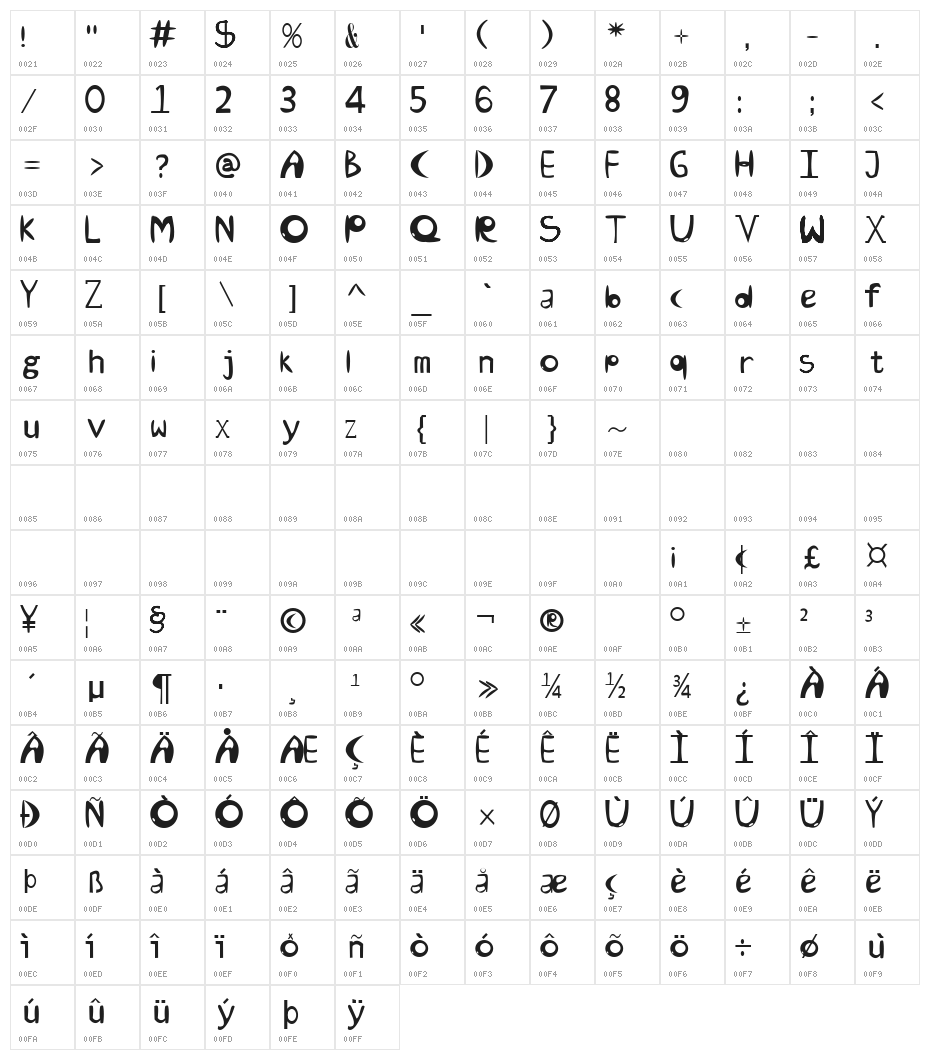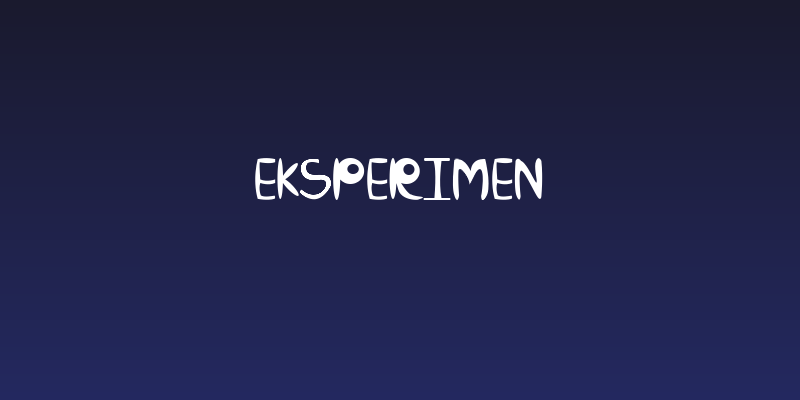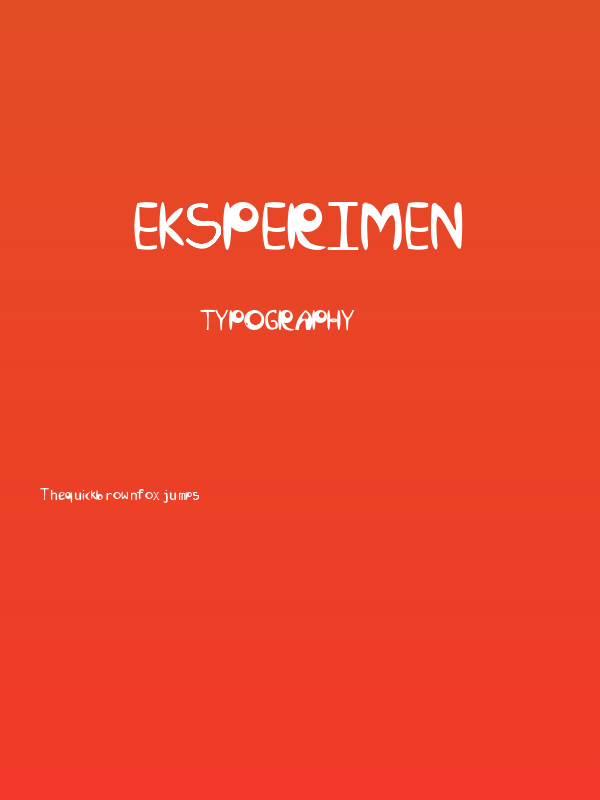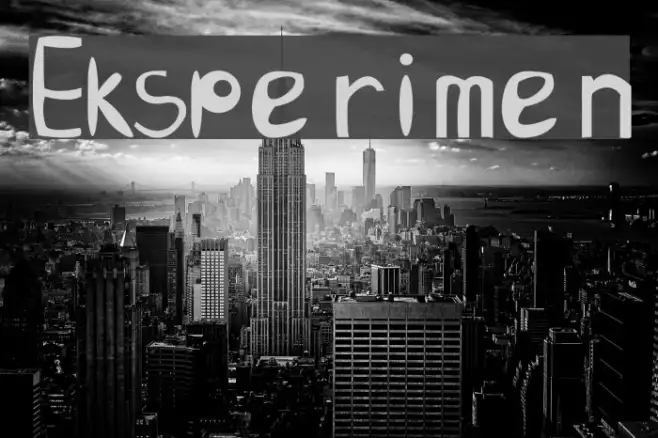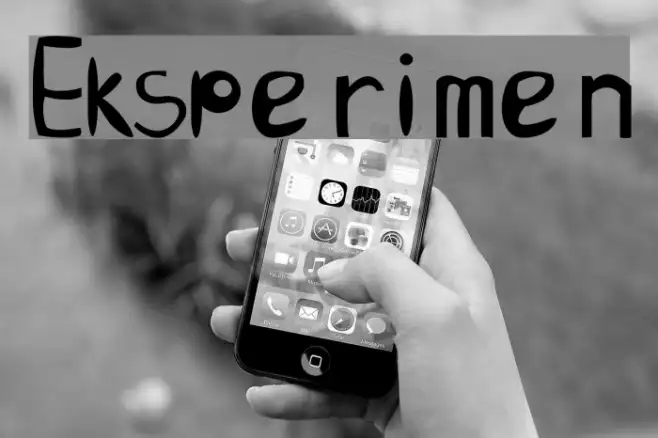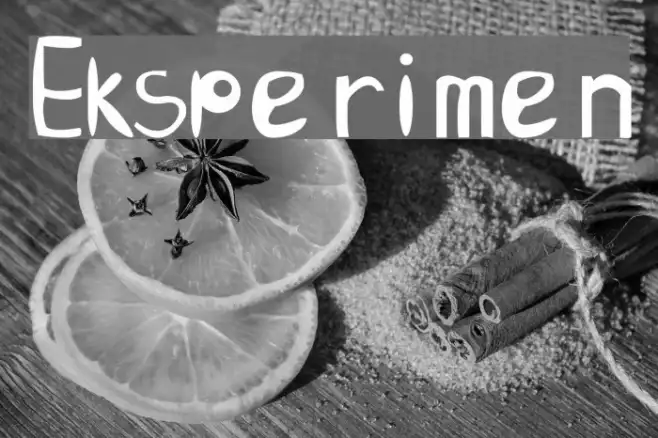
Eksperimen Font
Eksperimen Description
This font features a playful and experimental design, characterized by its unique and unconventional letterforms. The uppercase letters exhibit a variety of shapes, with some characters displaying a bold, rounded appearance while others have a more angular and narrow form. The lowercase letters continue this eclectic style, offering a mix of wide and narrow strokes that create a dynamic and lively visual effect. The numerals are bold and distinct, maintaining the quirky aesthetic of the alphabet. Special characters are included, each reflecting the font's overall whimsical and artistic nature. This font is ideal for projects that require a creative and eye-catching typeface.
| Proposed Projects | Ideal for creative projects, children's books, artistic posters, and branding that requires a whimsical touch. |